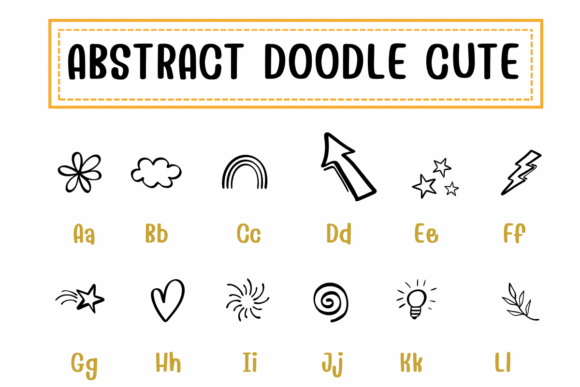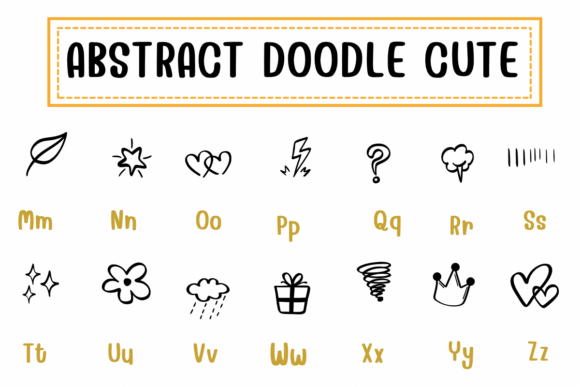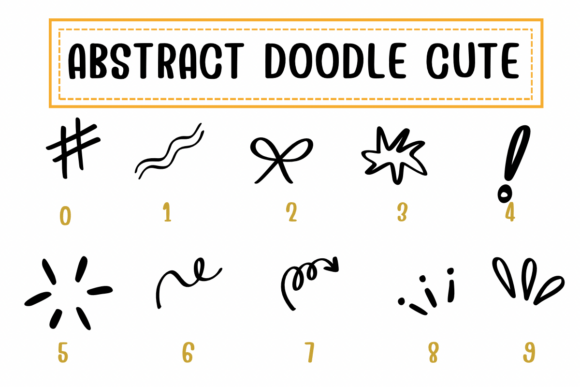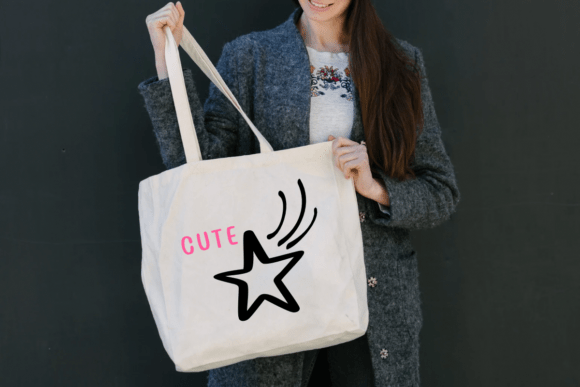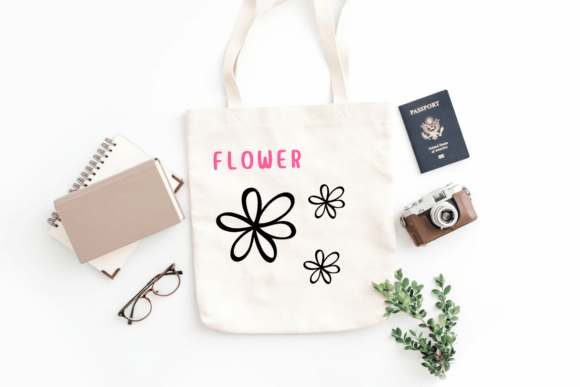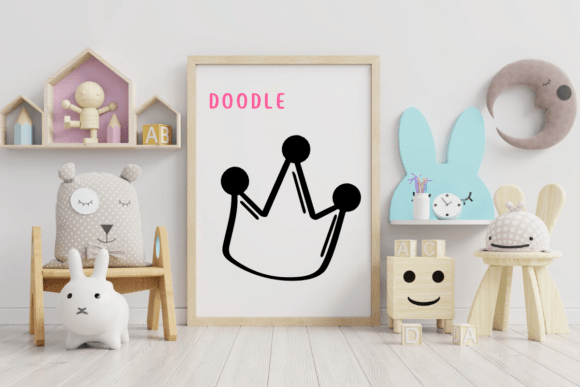
Unleash Your Inner Artist with the Abstract Doodle Cute Font
Have you ever found yourself lost in the joy of doodling, watching as your pen dances across the page, creating a world of whimsy and wonder? We’ve all been there – and that’s exactly what the Abstract Doodle Cute Font is all about. This delightful dingbats font is packed with hand-sketched icons, stars, hearts, swirls, and more, perfect for adding a touch of spontaneous creativity to your designs.
Whether you’re a planner enthusiast, a bullet journal aficionado, or a creative looking to add some personality to your branding, the Abstract Doodle Cute Font is an absolute must-have. With its casual charm and sketchbook feel, it’s the perfect tool for bringing your ideas to life and making them truly unique. By incorporating this font into your designs, you’ll be able to tap into your inner artist and create something truly special – and that’s what makes it so valuable for designers like you.
- Unique Characteristics: The font features a unique combination of doodle and cute elements, making it ideal for creative and playful designs.
Designer Review: Abstract Doodle Cute Font
Overall, I’m quite impressed with the Abstract Doodle Cute Font. It’s a unique and playful take on the traditional font, perfect for designers looking to add some whimsy to their projects. ✨
The font’s abstract doodle style is reminiscent of hand-drawn illustrations, making it a great choice for children’s books, educational materials, or any project that requires a fun and approachable tone.
- It’s a great choice for designers who want to add a touch of personality to their projects without going over the top.
- The font may not be the best choice for projects that require a more formal or professional tone.
- The abstract doodle style can be overwhelming in large quantities, so designers will need to use it sparingly.
Overall, I think the Abstract Doodle Cute Font is a great choice for designers who want to add a touch of personality to their projects. While it may have some limitations, it’s a unique and versatile font that’s sure to stand out.
The Abstract Doodle Cute Font is ideal for creating playful and whimsical designs for social media, marketing materials, and children’s products. It’s also great for adding a touch of creativity and personality to your designs, making it perfect for bloggers, artists, and designers.